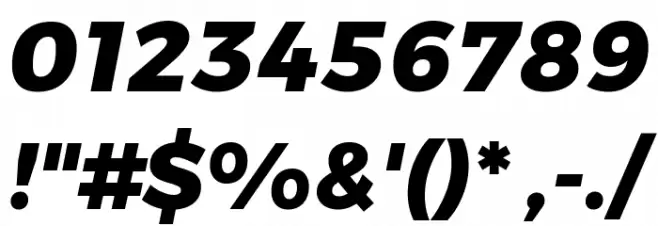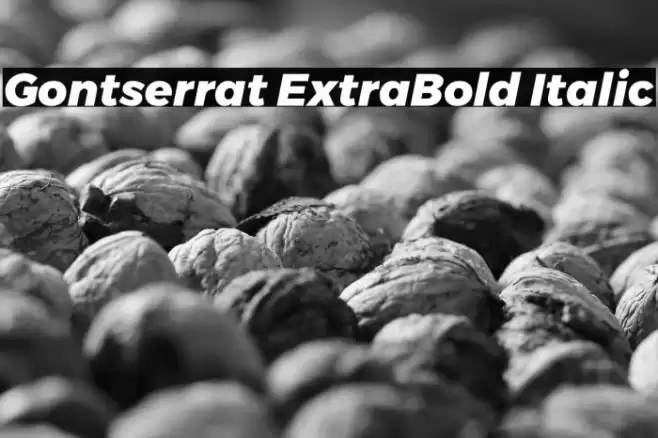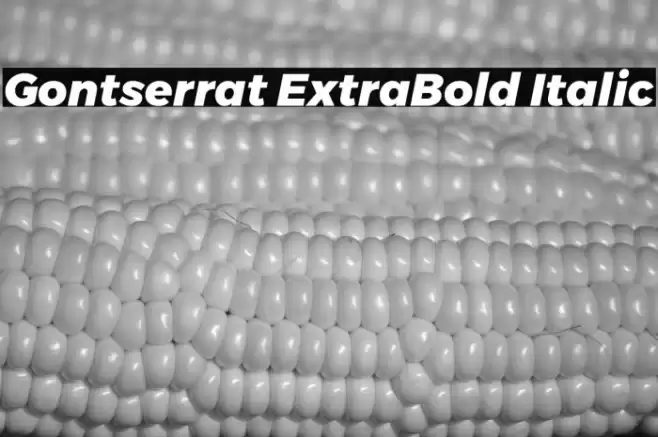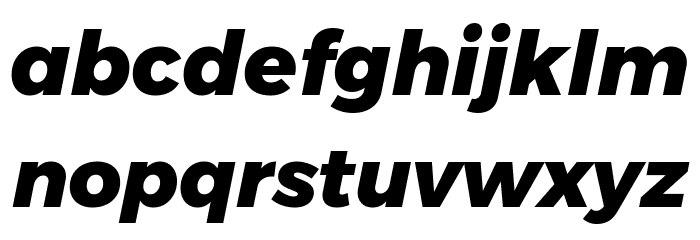
Gontserrat ExtraBold Italic Font
Gontserrat ExtraBold Italic Description
This typeface features a bold and dynamic style with a strong emphasis on modernity and clarity. The characters are designed with a slight slant, giving them an italicized appearance that adds a sense of movement and energy. The strokes are thick and consistent, providing a robust and confident look. The uppercase and lowercase letters are well-proportioned, ensuring readability and balance. The numerals are clear and distinct, making them suitable for various applications. Special characters are included, maintaining the overall aesthetic of the font. This typeface is versatile, making it ideal for projects that require a bold and contemporary touch.
| Use Case | Headlines, Logos, Branding |
| Proposed Projects | Ideal for branding, advertising, headlines, and digital media where a strong and modern presence is needed. |